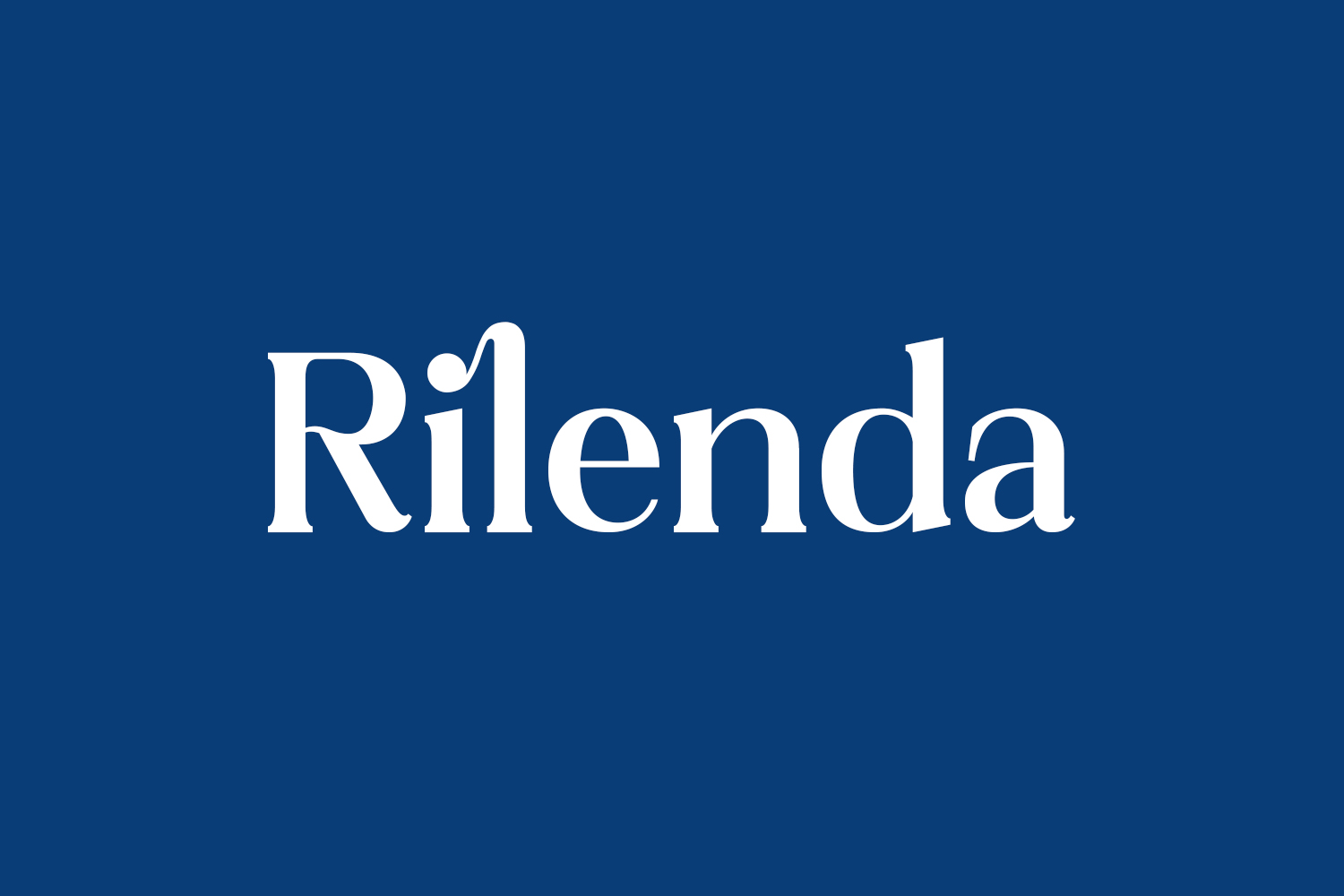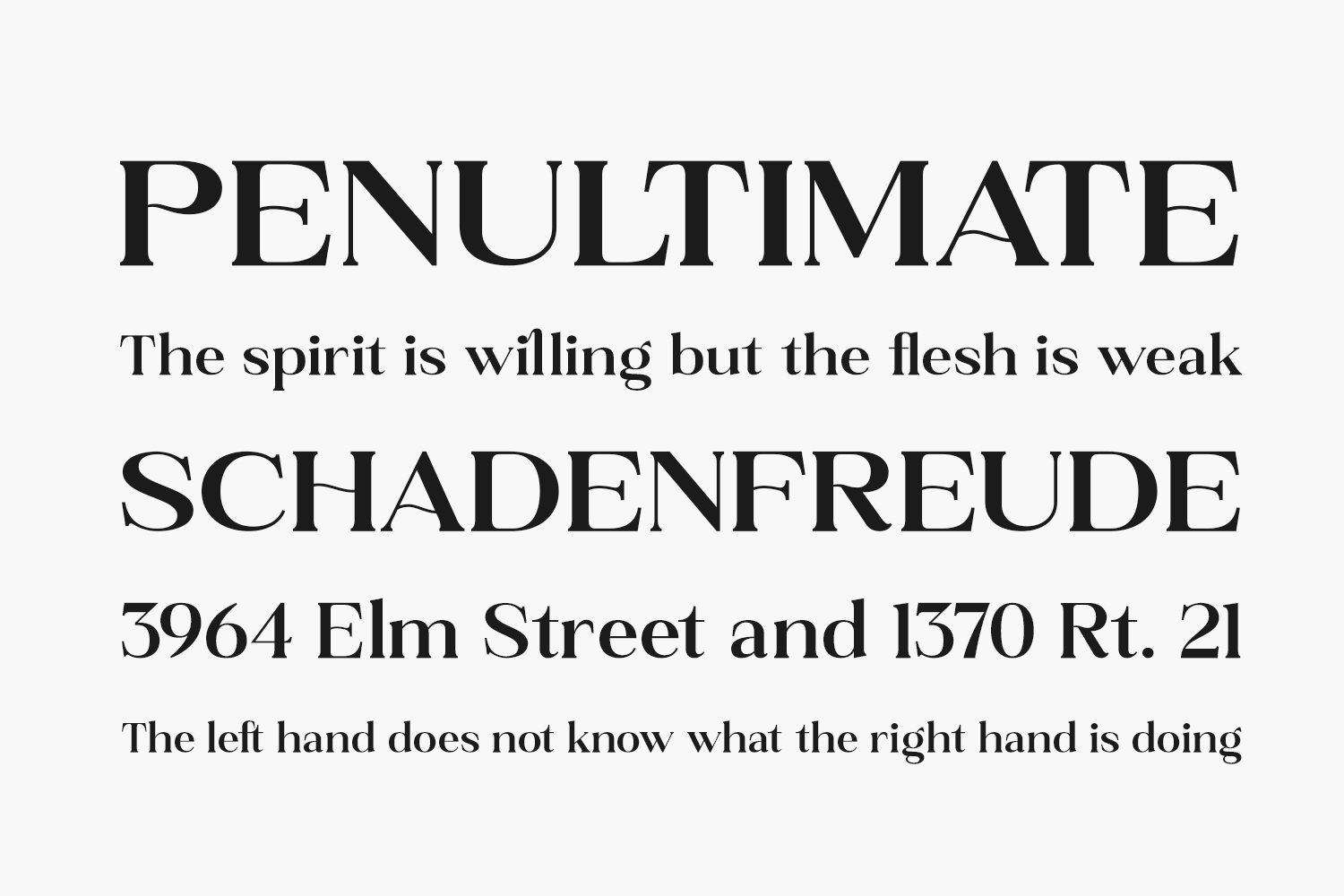
Rilenda Free Font presents a contemporary and fashionable serif font option. Its sleek curves and refined aesthetics make it the perfect choice for crafting chic and feminine designs with ease. Download the font for free if you need it for personal use or purchase the full version for commercial use.